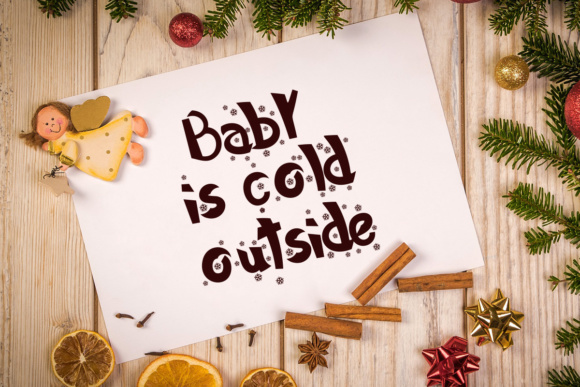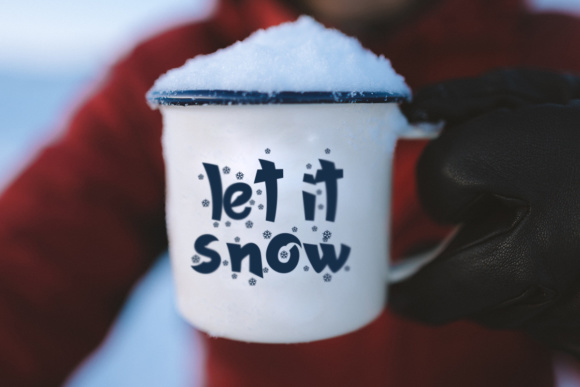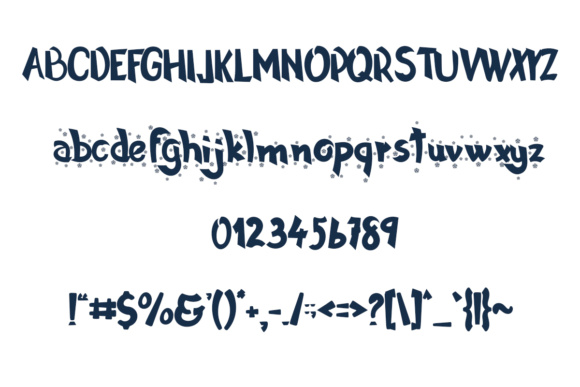
Introduction to Silent Night Font
Silent Night is a sharp-edged font, cold and harsh like the long winter nights.
The Silent Night font comes with a twist; the lowercase letters are surrounded by beautiful snowflakes Turning each design into a winter design in seconds.
Key Features of Silent Night Font